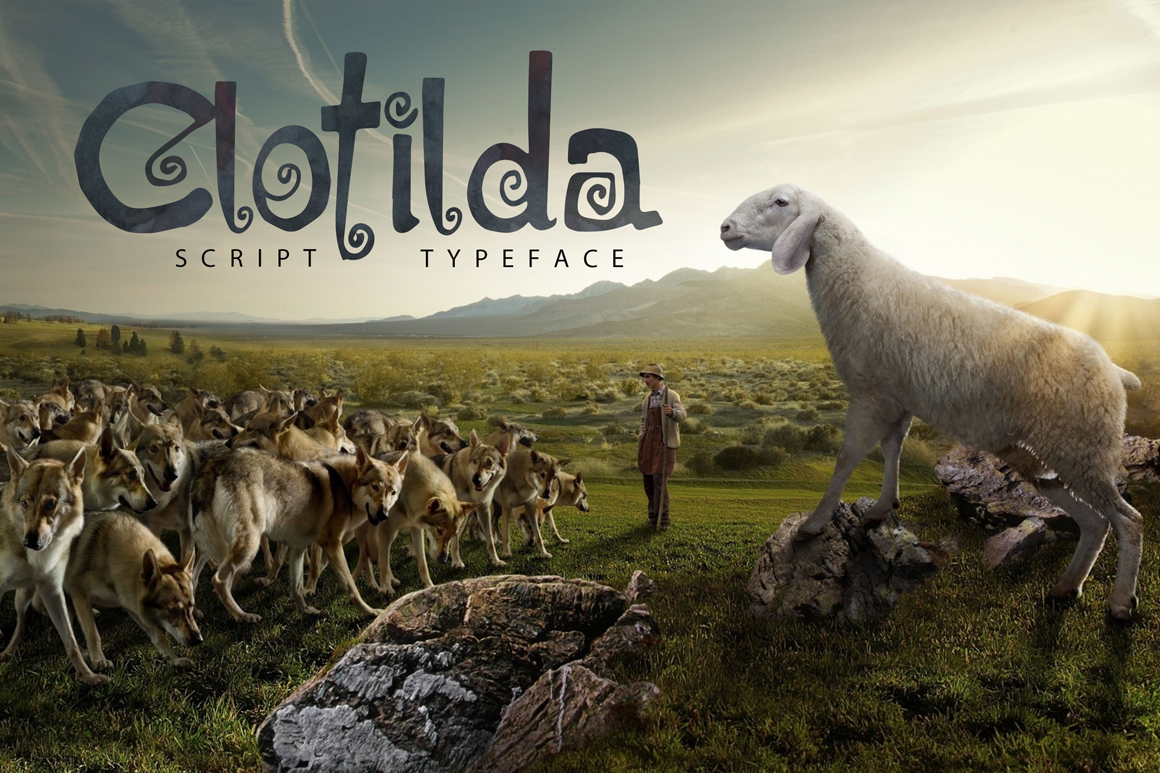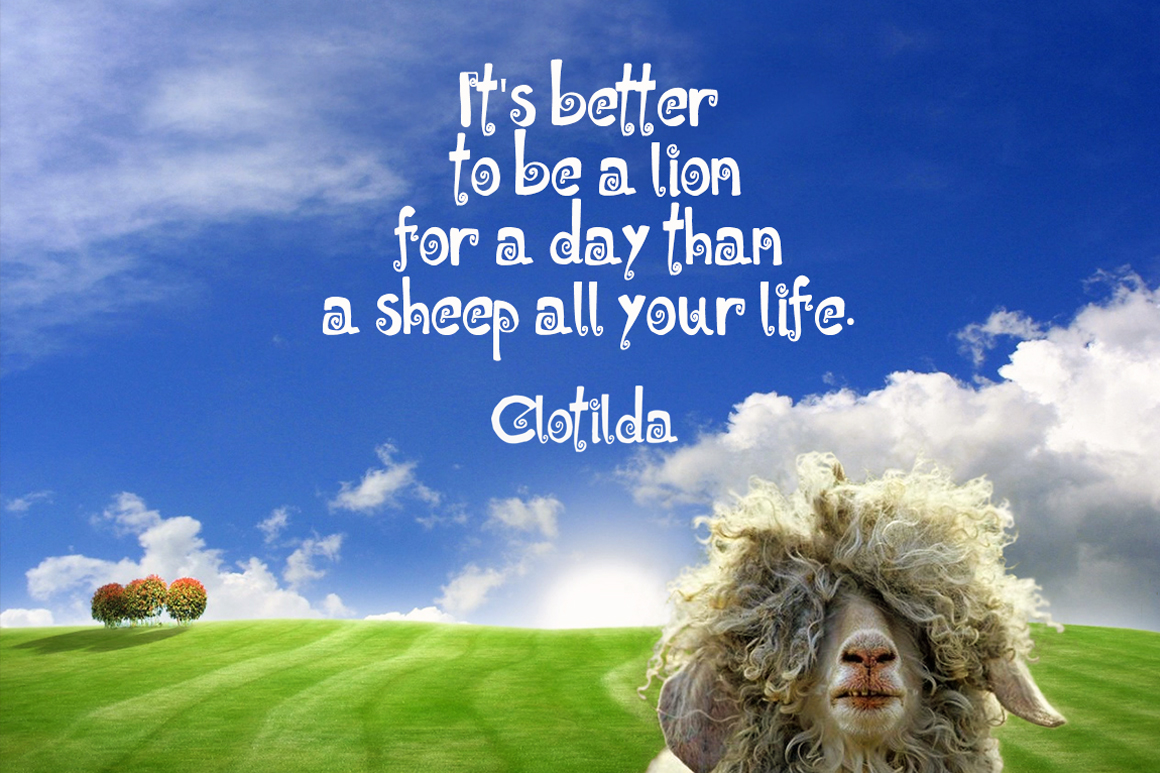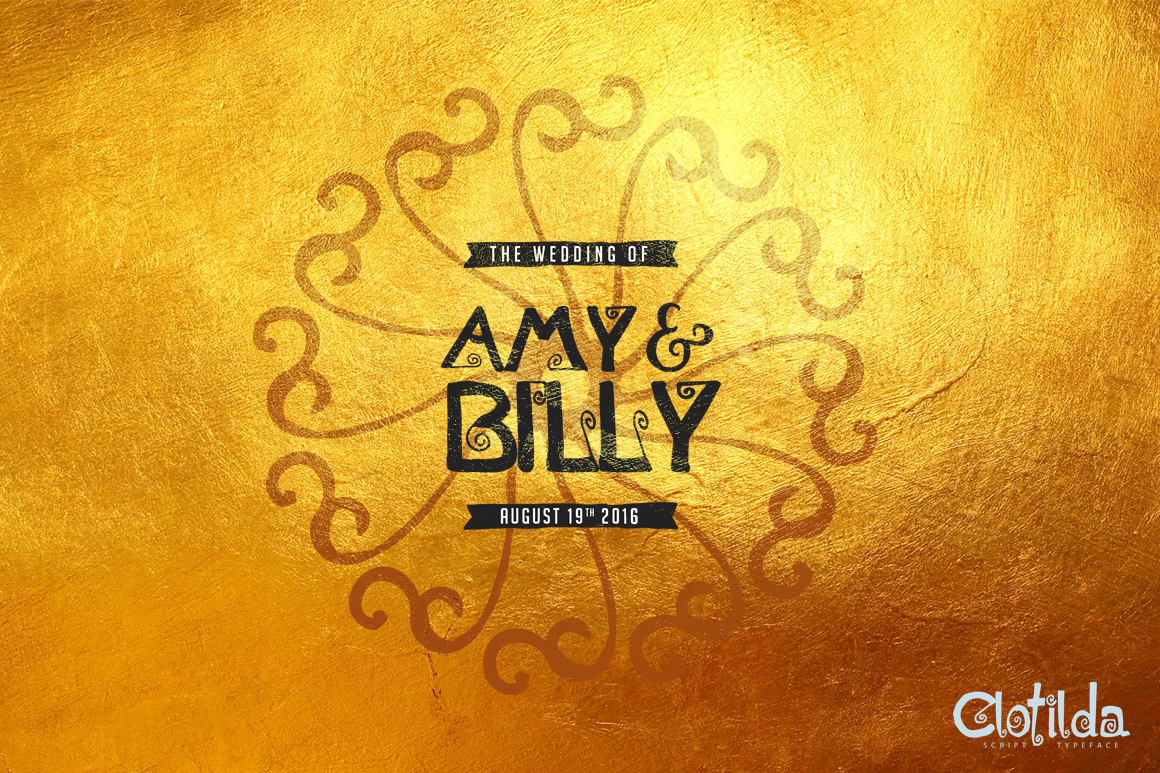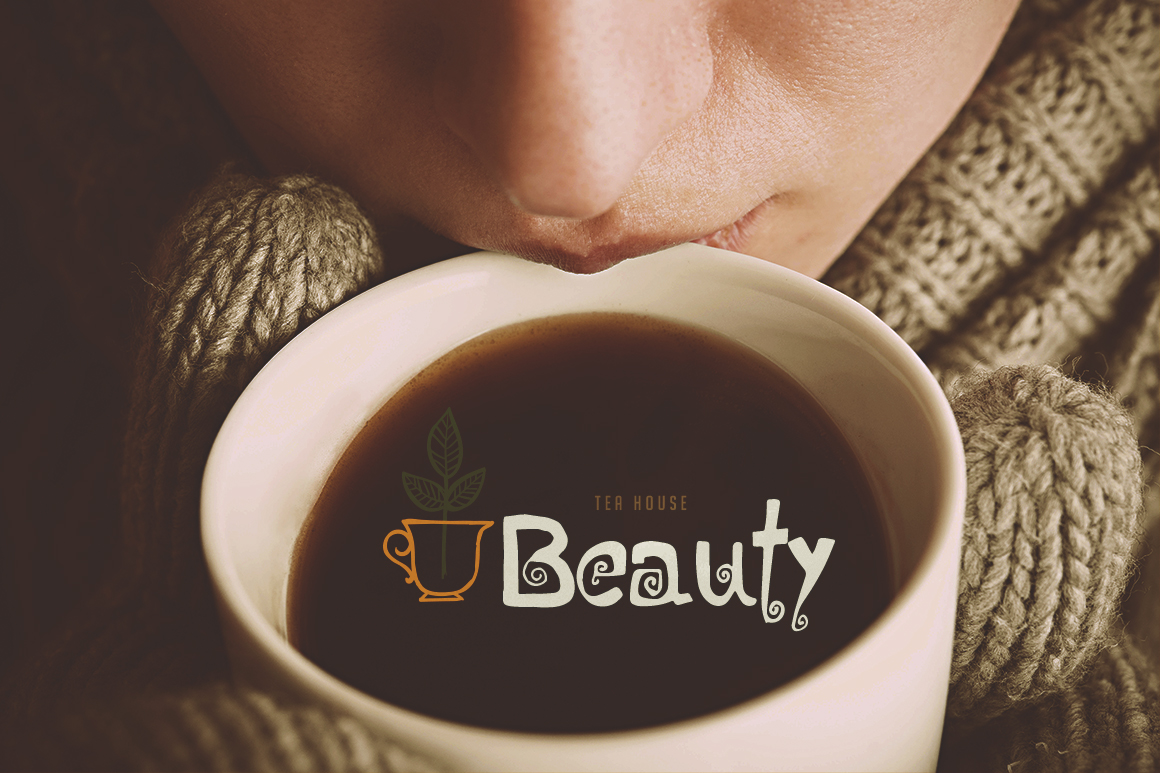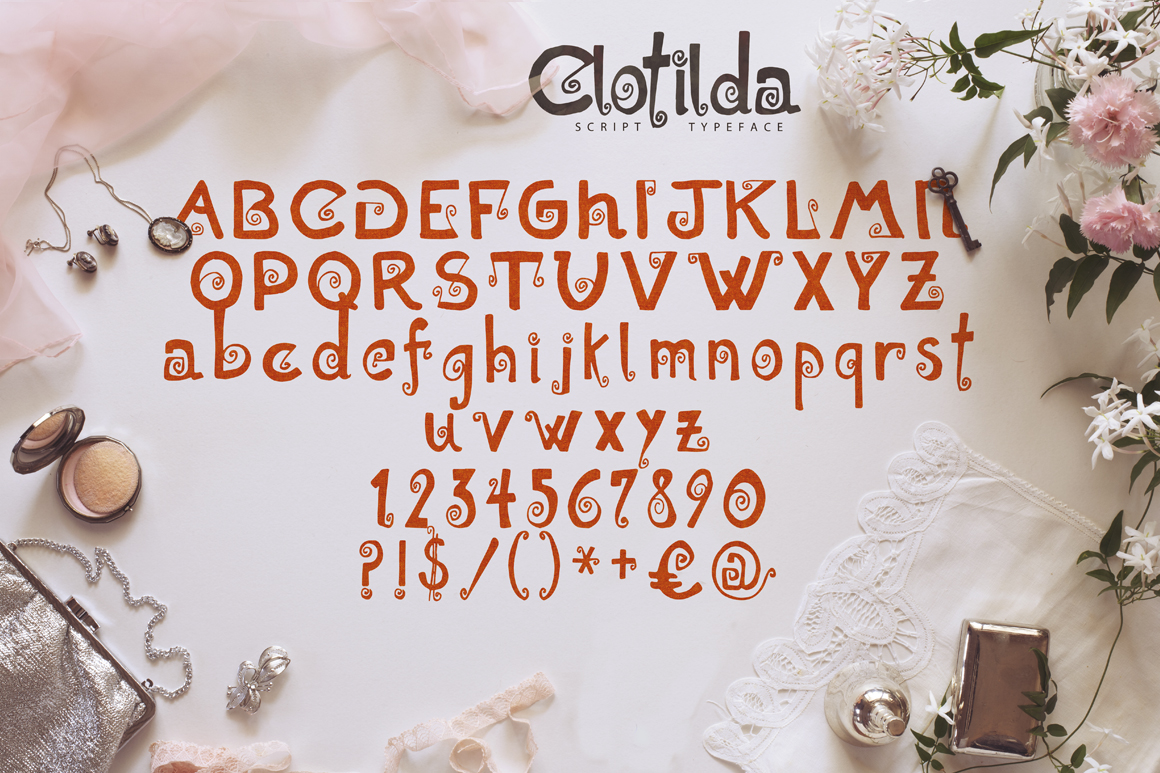
HomeScript FontsClotilda Font Script Fonts Clotilda Font FacebookXPinterestWhatsApp Clotilda Font Poster 2 Clotilda Font Poster 3 Clotilda Font Poster 4 Clotilda Font Poster 5 About Clotilda Font Clotilda is a fun styled font with curly decorations. DOWNLOAD ON CREATIVE FABRICAThis font is sold and delivered by Creative Fabrica. Font Canyon may earn a commission if you buy through this link. People also explored Slab Serif font Circus Freak Font Beloved Font Hellonesia Font Lirzec Font Divor Font Monday Font Thinkshare Font Ela Sans Zazá 341 0 TagsClotilda Font Previous articleEl Zorro FontNext articleClimbing Font LEAVE A REPLY Cancel reply Comment: Please enter your comment! Name:* Please enter your name here Email:* You have entered an incorrect email address! Please enter your email address here Website: Save my name, email, and website in this browser for the next time I comment. Personal Use Free New Normal Personal Use Free Read more about this font Laneway Personal Use Free Read more about this font Baby Magnolia Personal Use Free Read more about this font DREXS Personal Use Free Read more about this font BLOG How to Install and Use Fonts on Windows, macOS, and Web Projects How to Install and Use Fonts on Windows, macOS, and Web Projects Fonts are a crucial part of design and branding. Whether you’re designing a... Modern Sans-Serif Fonts That Brands Love in 2025 Free vs Paid Fonts: Why Investing in Premium Fonts Is Worth It The 10 Best Handwriting Fonts to Add Personality to Your Designs